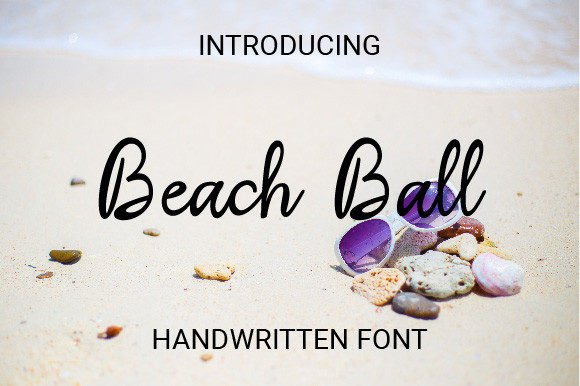
Welcome to the world of Beach Ball, a stunning script font that will add a touch of elegance and charm to your creative projects. Inspired by the carefree days of summer, Beach Ball has a playful and relaxed feel that will make your designs pop.
With its flowing lines and bouncy characters, Beach Ball is ideal for handwritten letters, wedding invitations, fashion magazines, billboards, and more. It's also perfect for branding and logos, as its unique style will help your business stand out from the crowd.
Created by the talented team at Wisnoetype Co., Beach Ball is a font that speaks to the heart. Its whimsical nature is sure to put a smile on your face, while its versatility makes it perfect for a wide range of projects.
Whether you're creating a personal journal, designing a wedding invitation, or launching a new fashion line, Beach Ball is the perfect font to add a touch of magic.
Unlock the endless possibilities of Beach Ball today and see your creative ideas come to life!
Beach Ball Font: Key Features:
- Playful and relaxed script style
- Perfect for handwritten letters, wedding invitations, fashion magazines, billboards, and more
- Ideal for branding and logos
- Unique style that will help your business stand out
- Created by the talented team at Wisnoetype Co.
Benefits of Using Beach Ball Script Font:
- Add a touch of elegance and charm to your creative projects
- Make your designs pop with its unique style
- Create a personal and heartfelt connection with your audience
- Stand out from the crowd with its whimsical and playful nature
- Unleash your creativity and bring your ideas to life